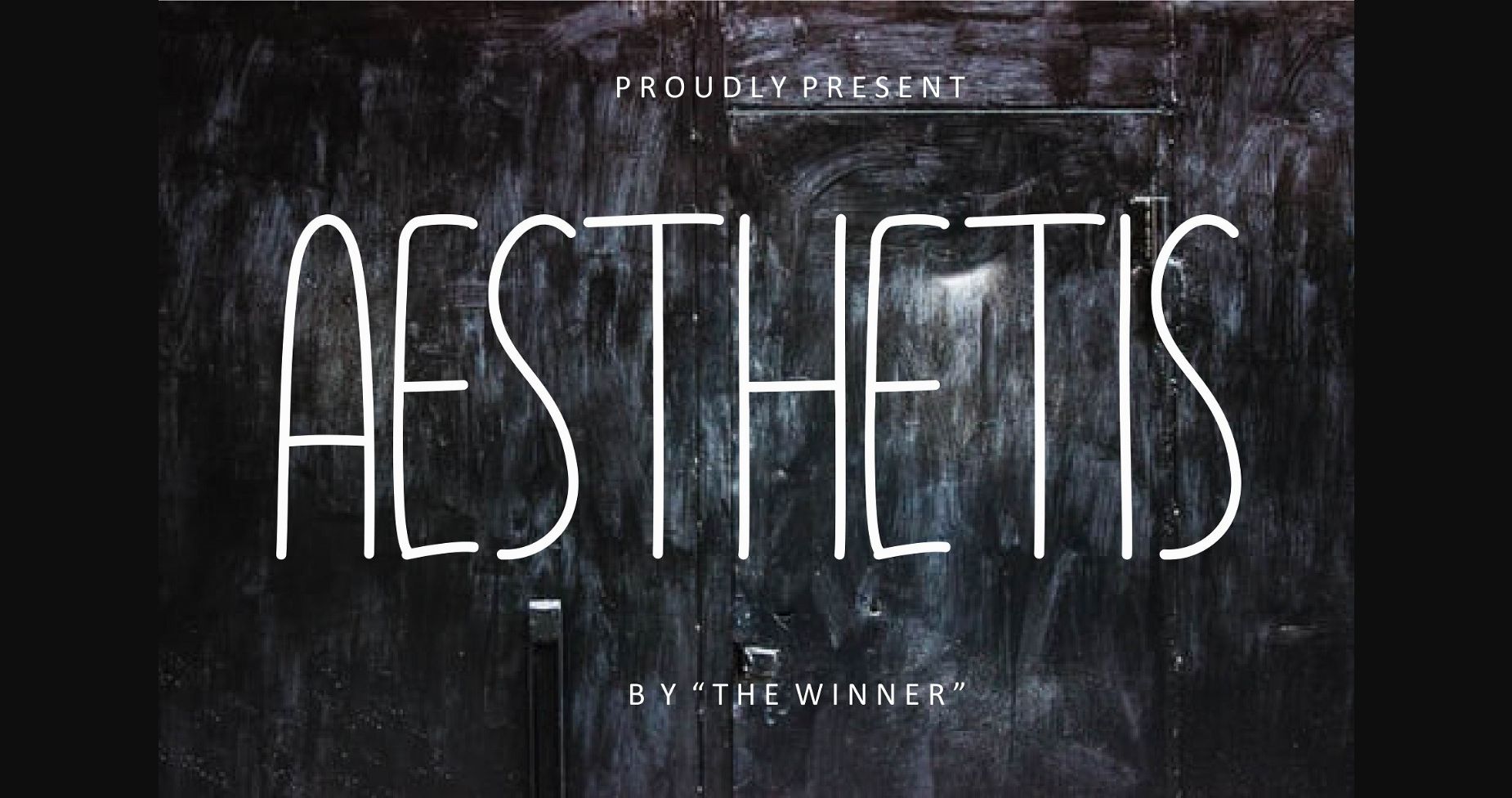
About Aesthetis Font
Introducing Aesthetis, a stunning sans serif monoline font. It’s perfect for branding, product packaging, invitations, quotes, t-shirts, labels, posters, or any logo you want to develop. Make all your design projects more attractive and take your designs to the next level with Aesthetis.